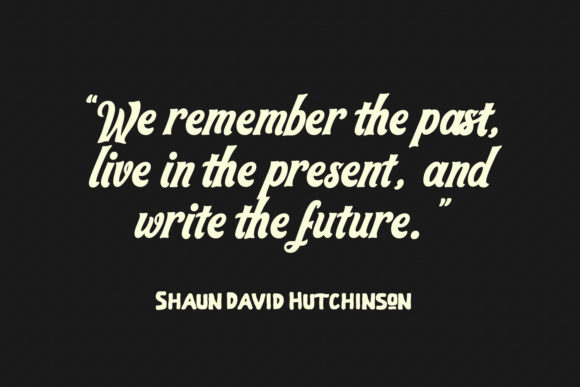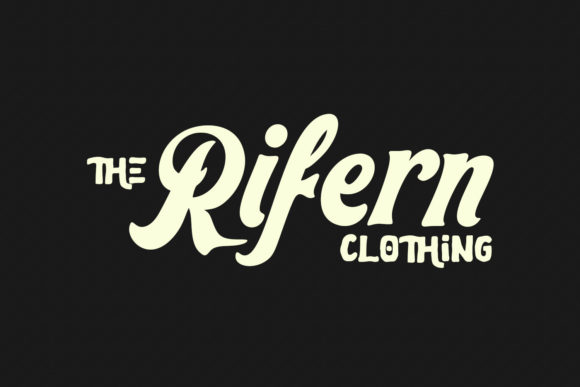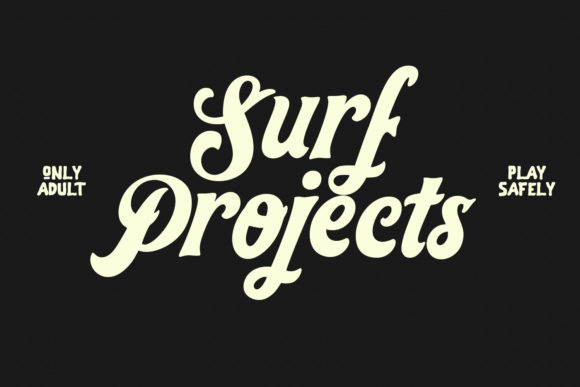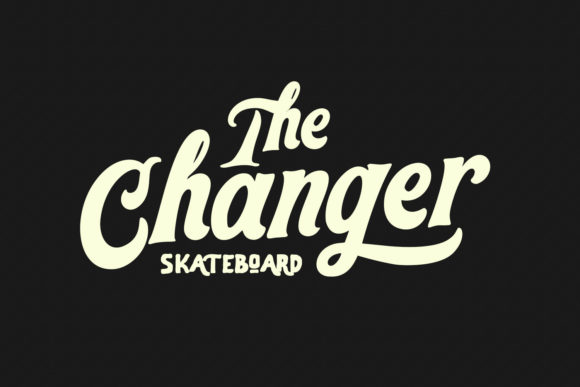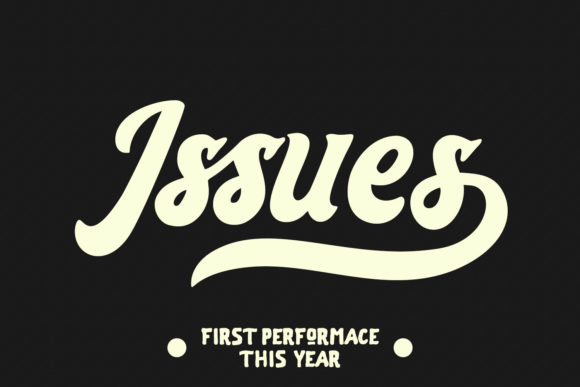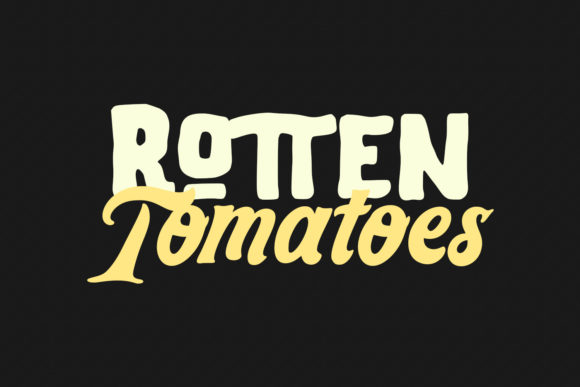
Introducing Goldluck Font: The Ultimate Retro Duo for Your Creative Projects
Are you a designer or crafter looking for a font that can add a touch of nostalgia and playfulness to your creations? Look no further than Goldluck Font, a 70’s retro duo font that is sure to elevate your designs to the next level. This versatile font features bold slant strokes, fun characters, ligatures, and alternates, making it an incredible asset to your font library.
What Makes Goldluck Font So Special?
Goldluck Font is a unique and eye-catching font that is perfect for a wide range of creative projects, from branding and advertising to packaging and digital media. Its bold slant strokes give it a dynamic and energetic feel, while its fun characters and ligatures add a playful touch. Whether you’re looking to create a vintage-inspired design or a modern look with a retro twist, Goldluck Font is the perfect choice.
Key Features of Goldluck Font
- Script and Display Font: Goldluck Font comes in both script and display styles, giving you the flexibility to use it for a wide range of projects.
- Bold Slant Strokes: The font’s bold slant strokes give it a dynamic and energetic feel that’s perfect for creating eye-catching designs.
- Fun Characters and Ligatures: Goldluck Font features a range of fun characters and ligatures that add a playful touch to your designs.
- Alternates: The font also includes alternate characters, giving you even more flexibility and creative options.
Why You Need Goldluck Font in Your Library
No matter what topic or theme you’re working with, Goldluck Font is sure to be an incredible asset to your font library. Its versatility and playfulness make it perfect for a wide range of creative projects, from:
- Branding and Advertising: Use Goldluck Font to create eye-catching logos, ads, and marketing materials that stand out from the crowd.
- Packaging: Add a touch of nostalgia and playfulness to your product packaging with Goldluck Font.
- Digital Media: Use Goldluck Font to create engaging and interactive digital content, such as social media graphics, blog posts, and more.
Tips for Using Goldluck Font
Here are a few tips for getting the most out of Goldluck Font:
- Experiment with Different Styles: Try using Goldluck Font in different styles, such as bold and italic, to create visual interest and hierarchy.
- Mix and Match: Combine Goldluck Font with other fonts to create a unique and eye-catching look.
- Play with Ligatures: Experiment with the font’s ligatures and alternates to add a touch of whimsy and personality to your designs.
Goldluck Font is a versatile and playful font that is sure to elevate your creative projects to the next level. With its bold slant strokes, fun characters, ligatures, and alternates, it’s the perfect choice for designers and crafters looking to add a touch of nostalgia and whimsy to their designs. Whether you’re working on a branding project, packaging design, or digital media, Goldluck Font is an incredible asset to have in your font library.